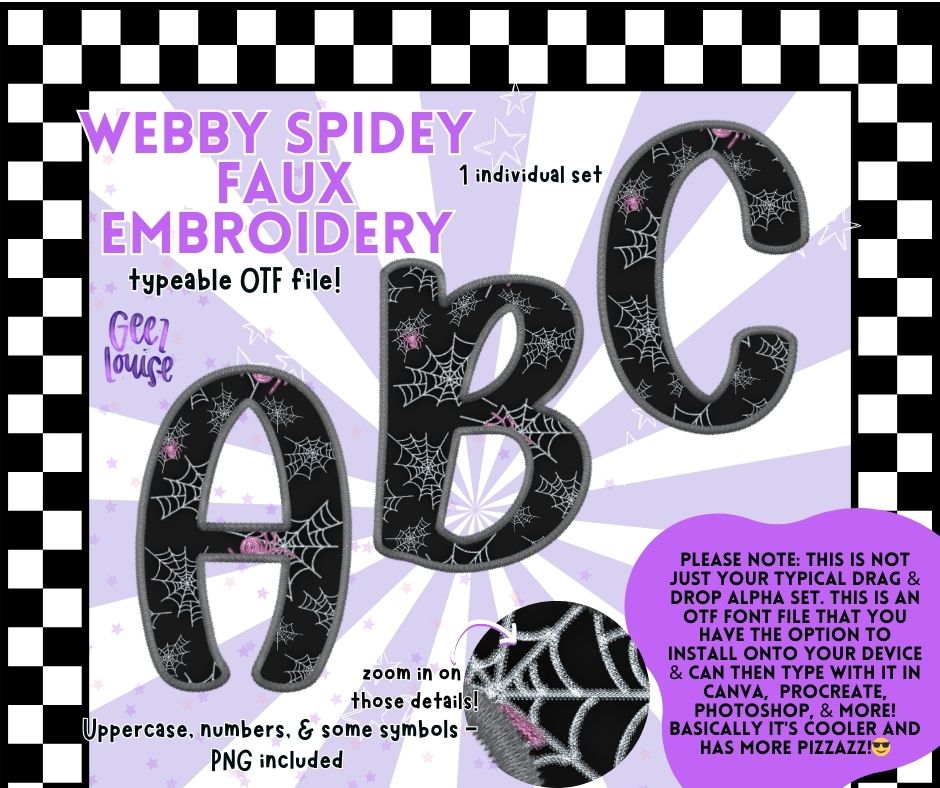
Webby Spidey Faux Embroidery – OTF Font + PNG Alpha Set
Add a web of flair to your designs with the Webby Spidey Faux Embroidery OTF Font! 🕸️💜
This isn’t your average alpha set—this is a typeable OTF font that installs like magic and works inside your favorite design programs like Canva, Procreate, Photoshop, and more. Every letter is stitched with webby details and pops with faux embroidery texture.
Faux embroidery style with spiderweb detail
Perfect for Halloween, spooky season, or just a little sass all year round
🧵 This font gives you flexibility to type it out directly or use the PNGs for drag-and-drop projects. It's spooky-cute and full of pizzazz—because basic fonts are sooo last season.